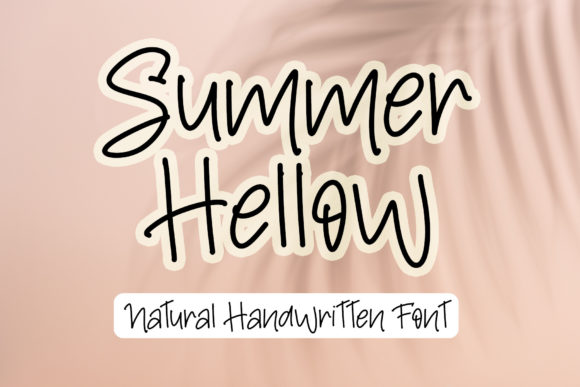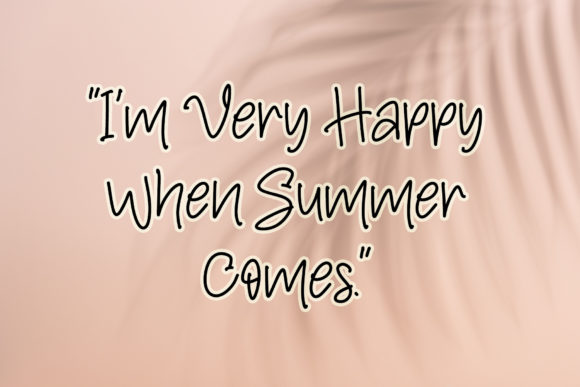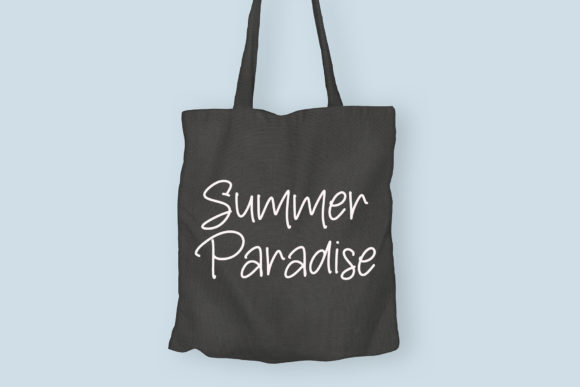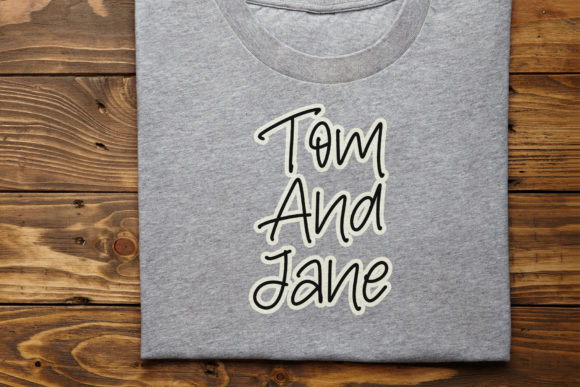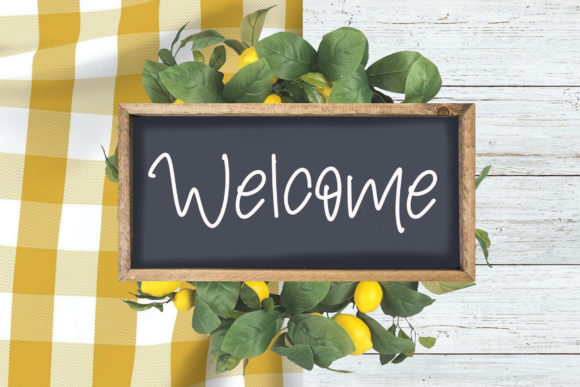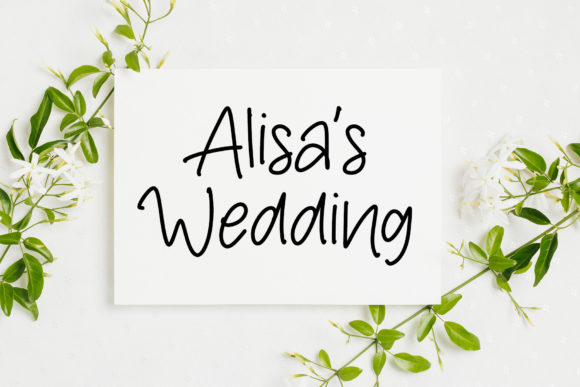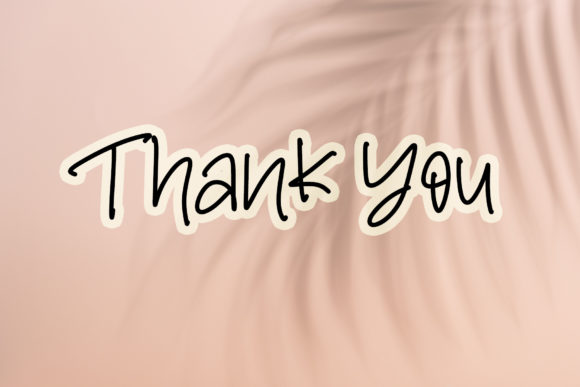
Summer Hellow Font
About Summer Hellow Font
“Summer Hellow” is a simple, thin-lettered, and flowing handwritten font designed to bring a light and friendly touch to your projects. This adaptable typeface is well-suited for a variety of design ideas, adding a fun and approachable vibe to each of your creations.
The simplicity of “Summer Hellow” is reflected in its thin and flowing letterforms. The font’s design is clean and easy to read, making it versatile for various applications. Whether used for digital or print projects, this font maintains a modern and uncomplicated aesthetic.
The thin lettering of “Summer Hellow” contributes to its adaptability, allowing it to seamlessly integrate into different design contexts. Its flowing style adds a touch of playfulness, making it a great choice for projects that require a friendly and informal vibe.
As you incorporate “Summer Hellow” into your designs, you’ll find that it imparts a fun and lighthearted feel. Whether used for social media graphics, invitations, or other creative applications, this font adds a touch of warmth and friendliness to your text.
In summary, “Summer Hellow” is more than just a font; it’s a simple, thin-lettered, and flowing handwritten typeface that enhances your designs with a fun and friendly touch. Whether used for digital or print projects, let “Summer Hellow” be the font that brings a sense of playfulness and approachability to your creative endeavors, making each project feel light and enjoyable.